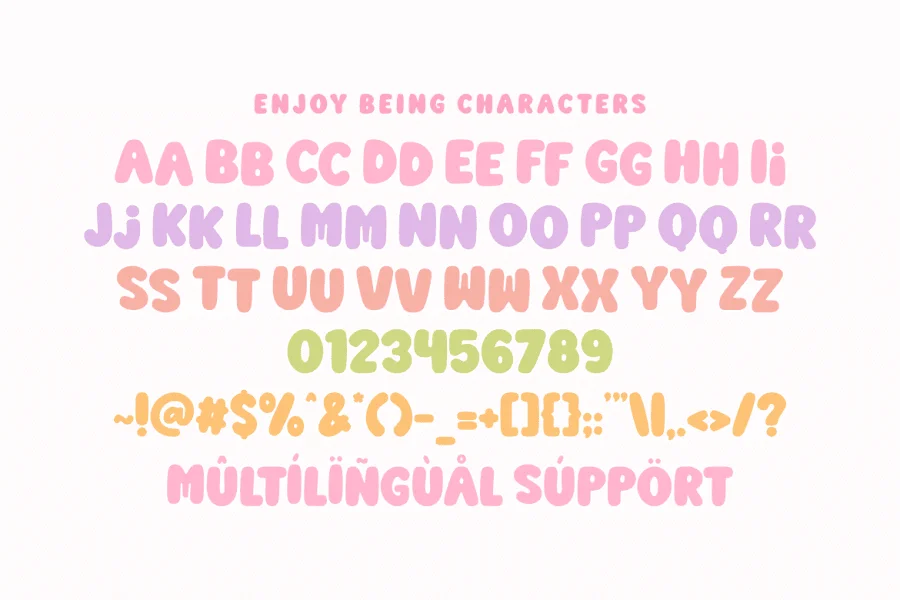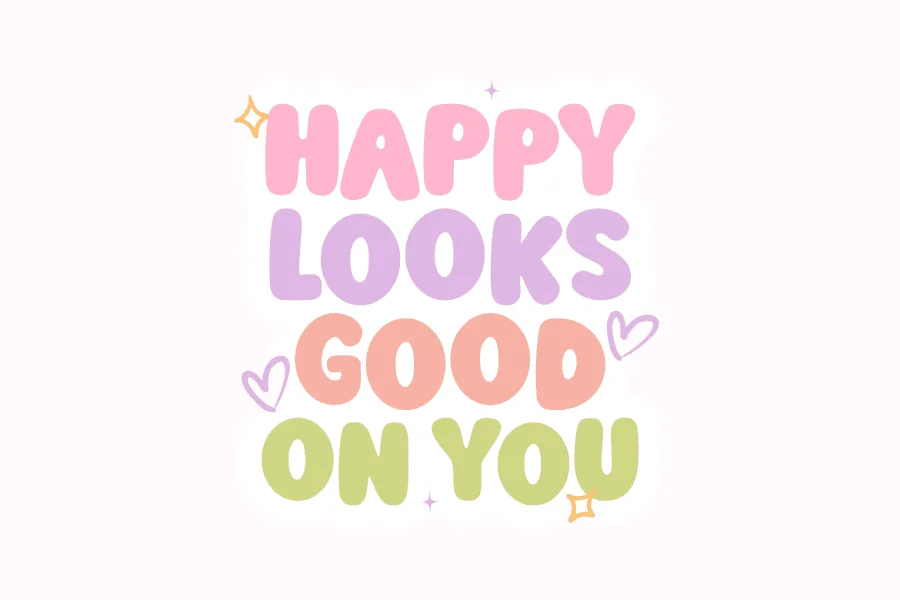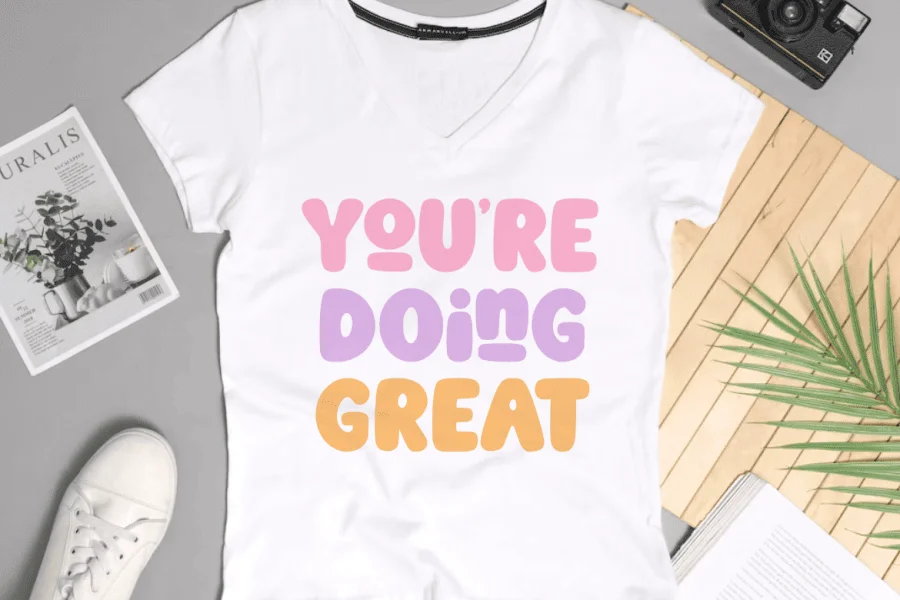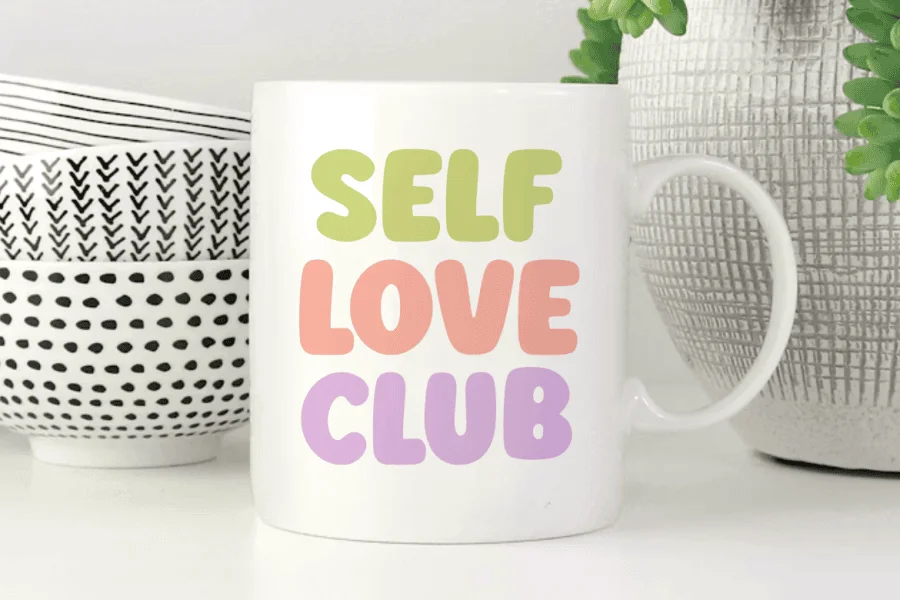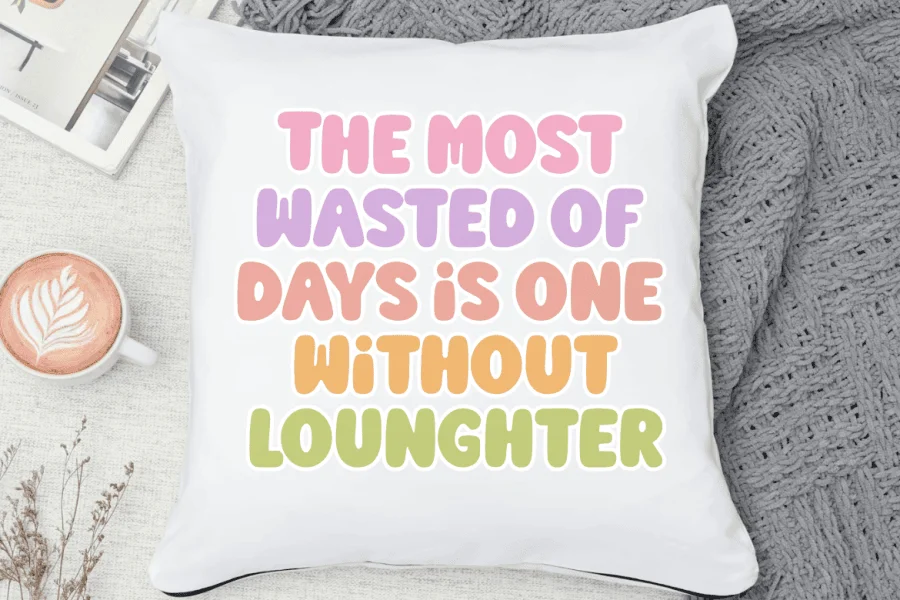
Enjoy Being - Playful Bubble Font for Cricut and Sublimation Design
Truth bubble is a cute bubble display font designed to bring a soft, friendly, and playful atmosphere to your creative projects. Featuring thick, rounded characters with delicate glossy highlights, this typeface captures a joyful, bubbly aesthetic that is both modern and approachable. Its bold, clean construction is specifically optimized for the crafting community, ensuring a seamless and easy cutting experience for all your vinyl projects, sublimation, and digital designs.
Perfect for: creating high-converting SVG cut files, personalized stickers, kids' party decorations, adorable nursery wall art, custom t-shirt designs, and playful social media branding. Whether you are a professional Print on Demand (POD) seller or a dedicated DIY enthusiast, this font offers the perfect balance of readability and whimsical charm for any project.
Great for holiday themes such as Birthdays, Summer parties, Children's Day, and Valentine's Day, adding a sweet, optimistic, and bubbly personality to your seasonal design collections!